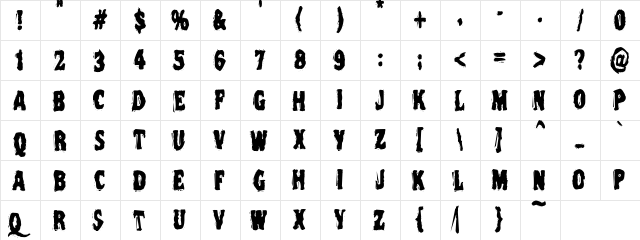
VTC NightOfTheDeadCorruptCaps Regular
| Designer | WolfBainX |
Design Context for VTC NightOfTheDeadCorruptCaps Typeface
VTC NightOfTheDeadCorruptCaps is a composed and adaptable typeface that performs quietly and consistently across a wide range of design contexts.